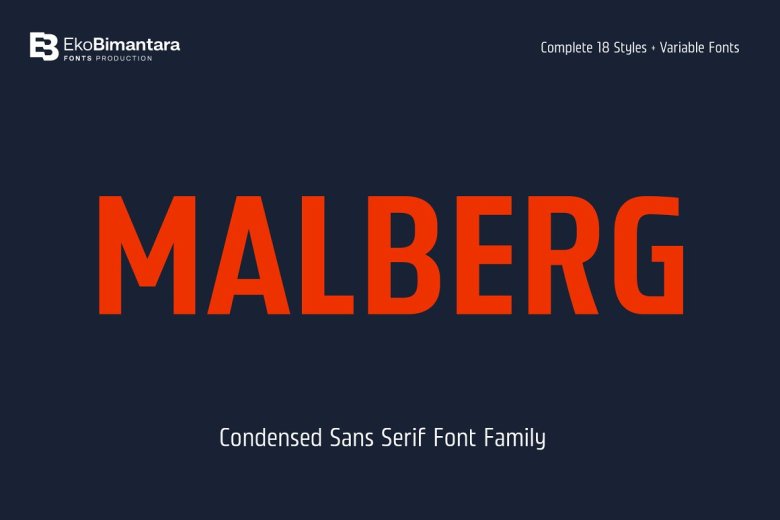
It was Eko Bimantara who came up with the solid, powerful impression of the sans serif typeface Malberg. Has 9 styles: from thin to heavy matching italics.
It’s a simple and modern futuristic design font suited for many areas of use. Suitable for instance as well as for all sorts of design applications.
Malberg Sans Serif Font